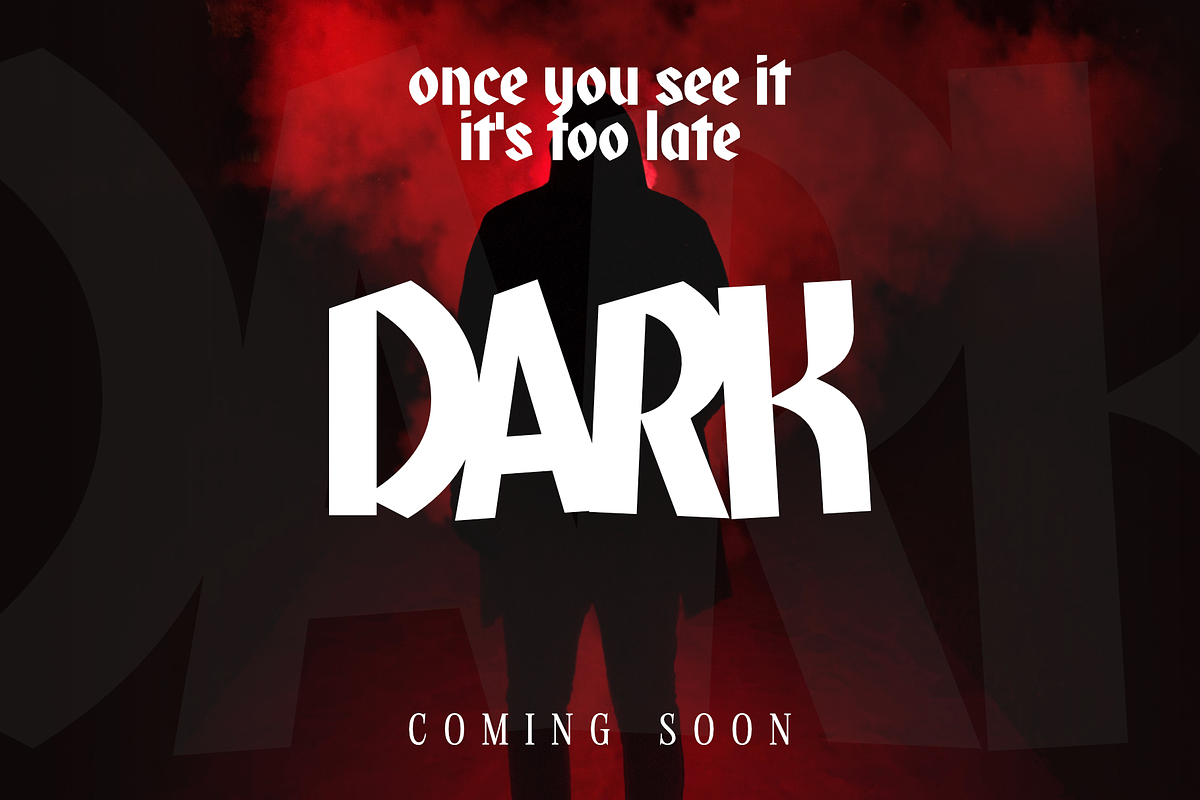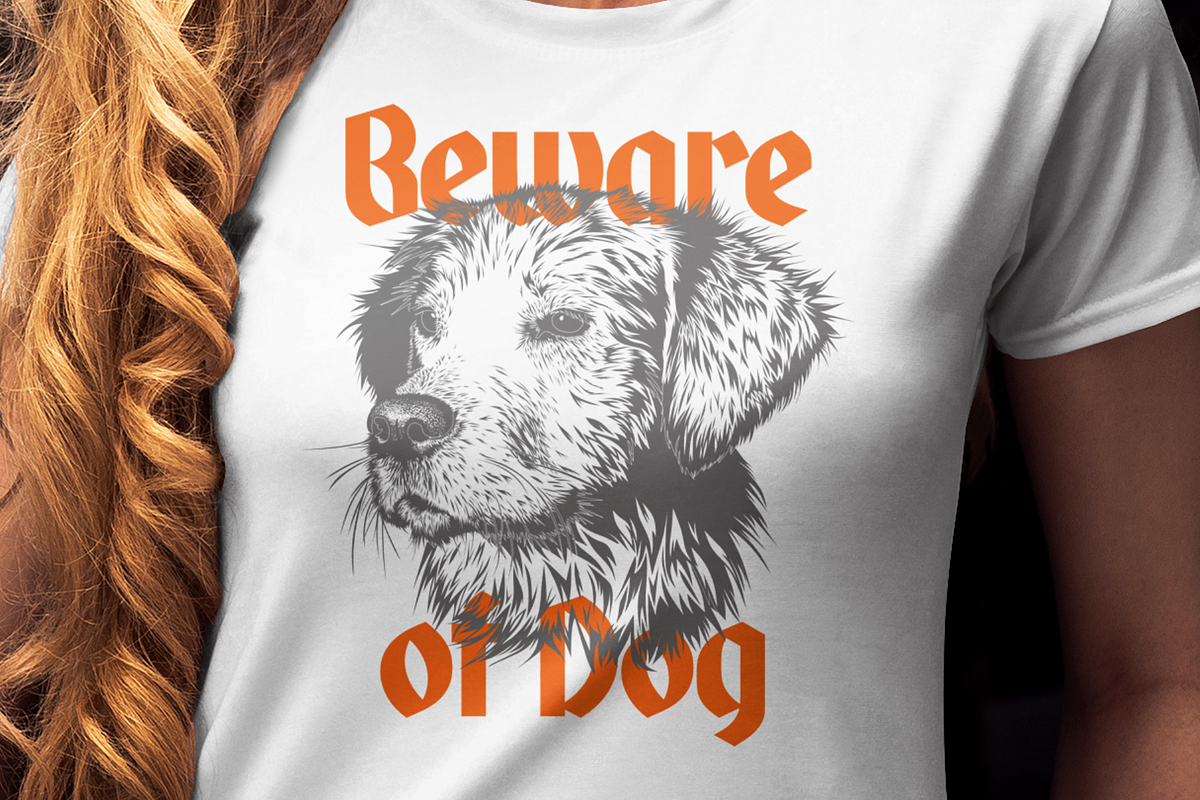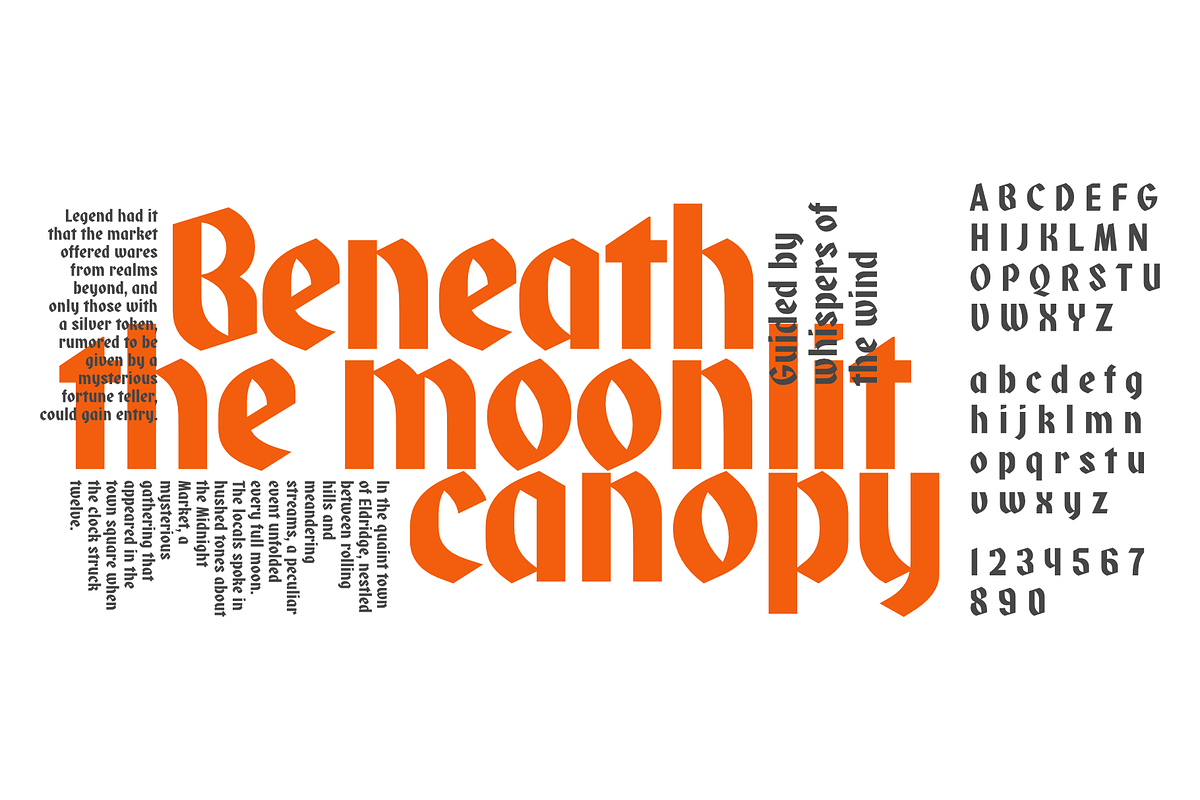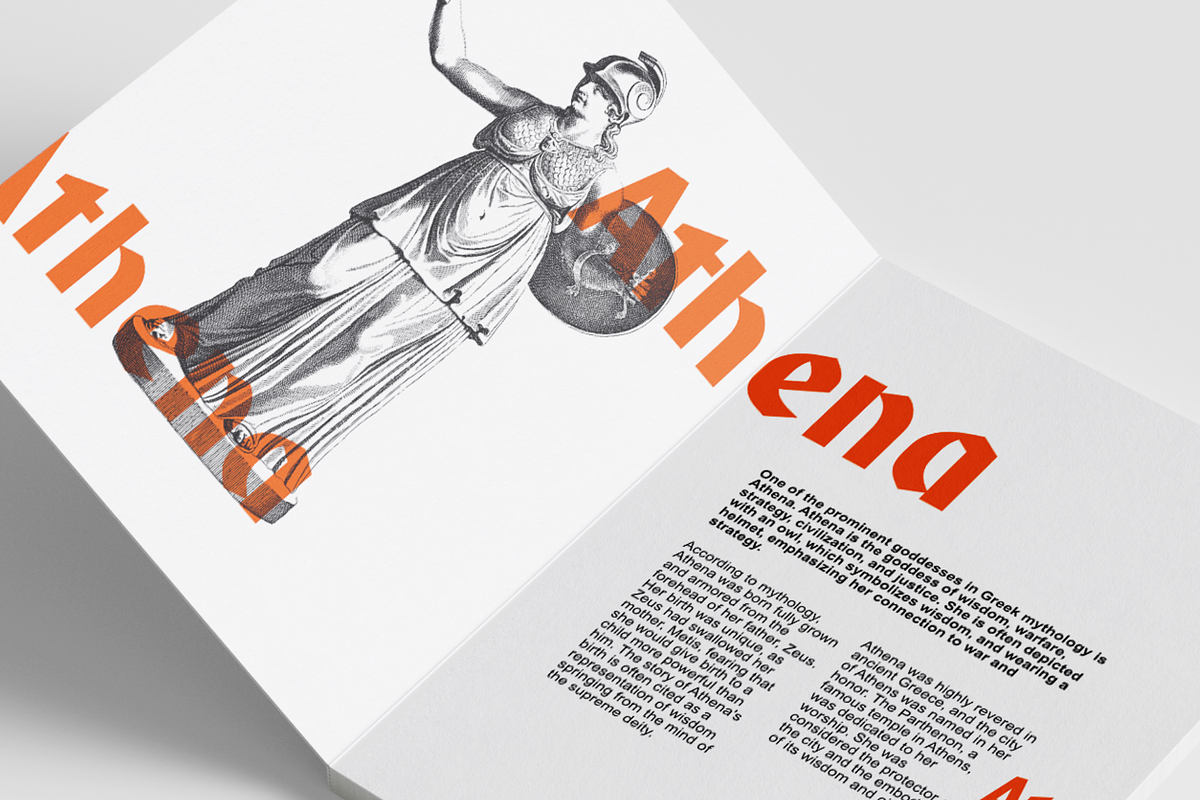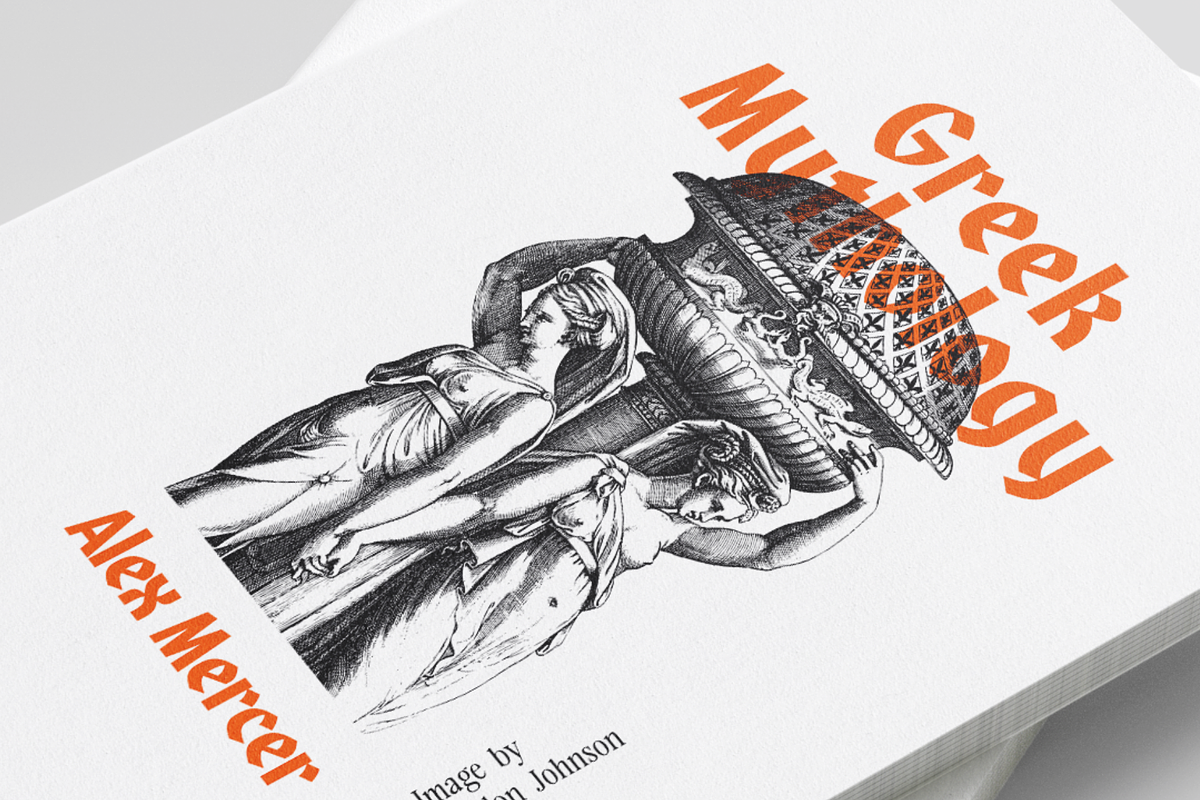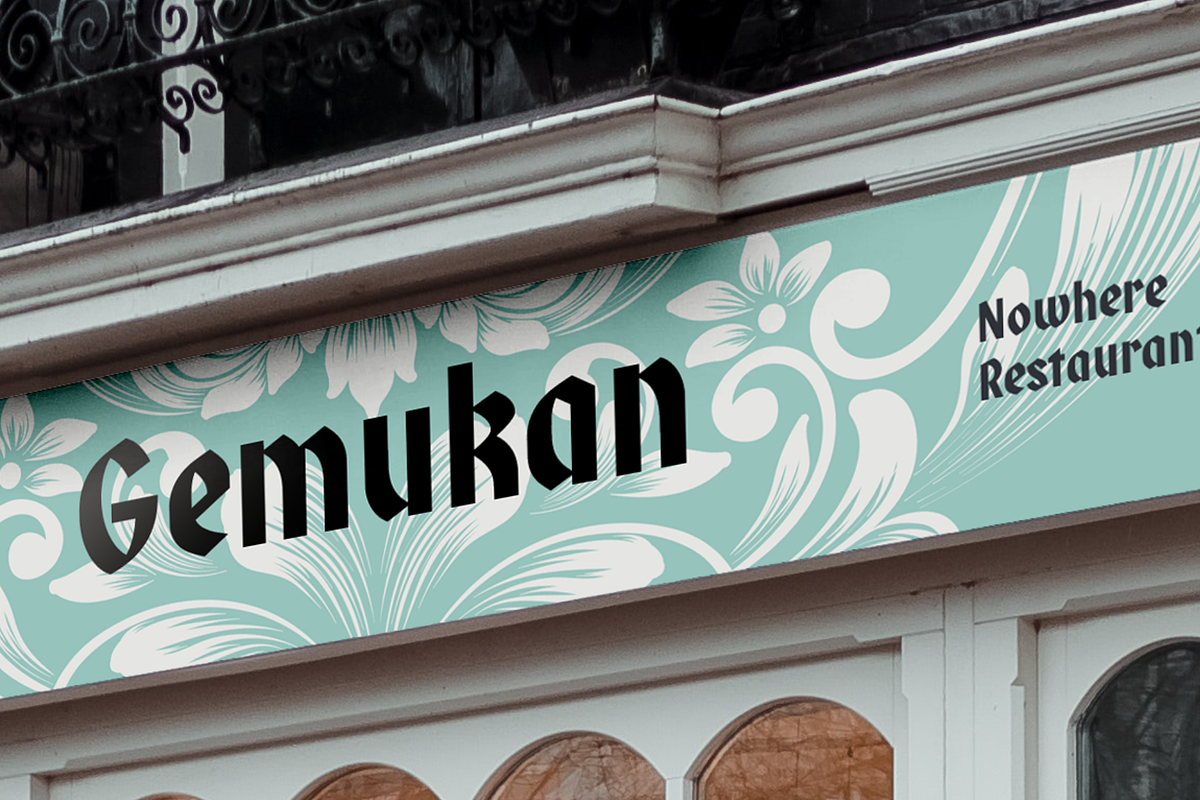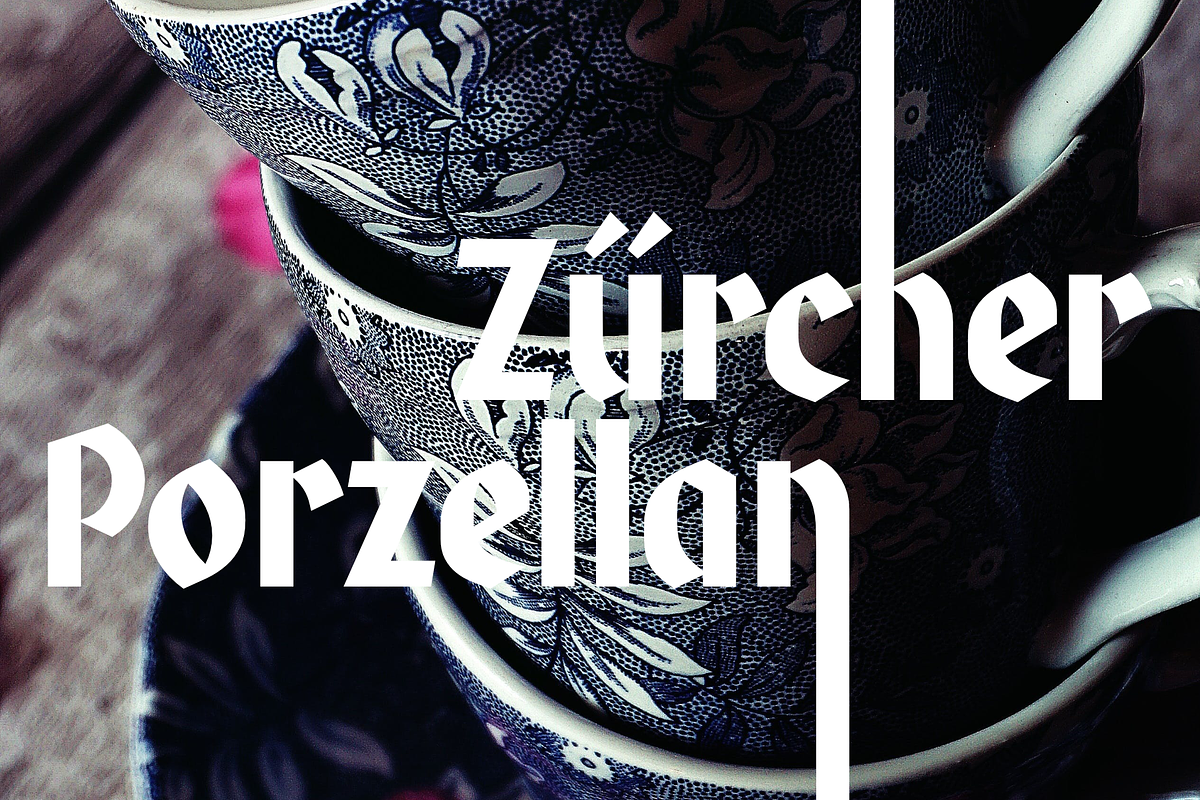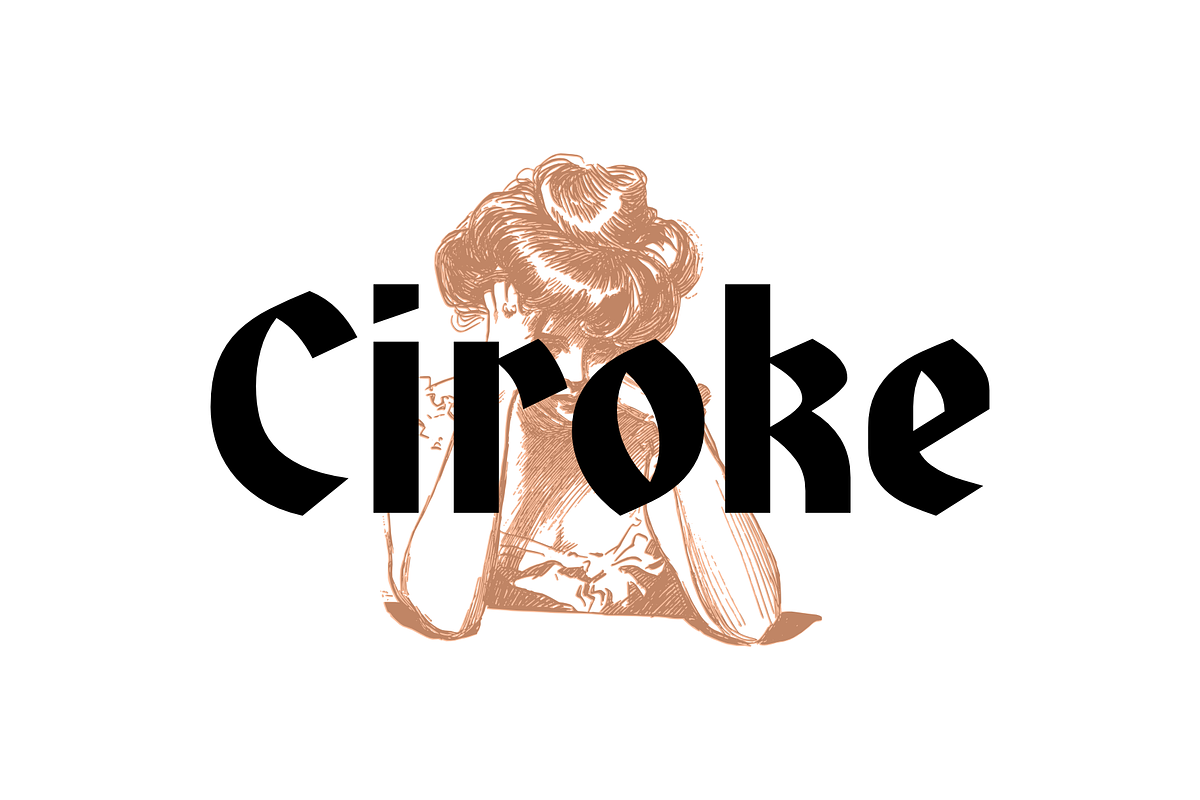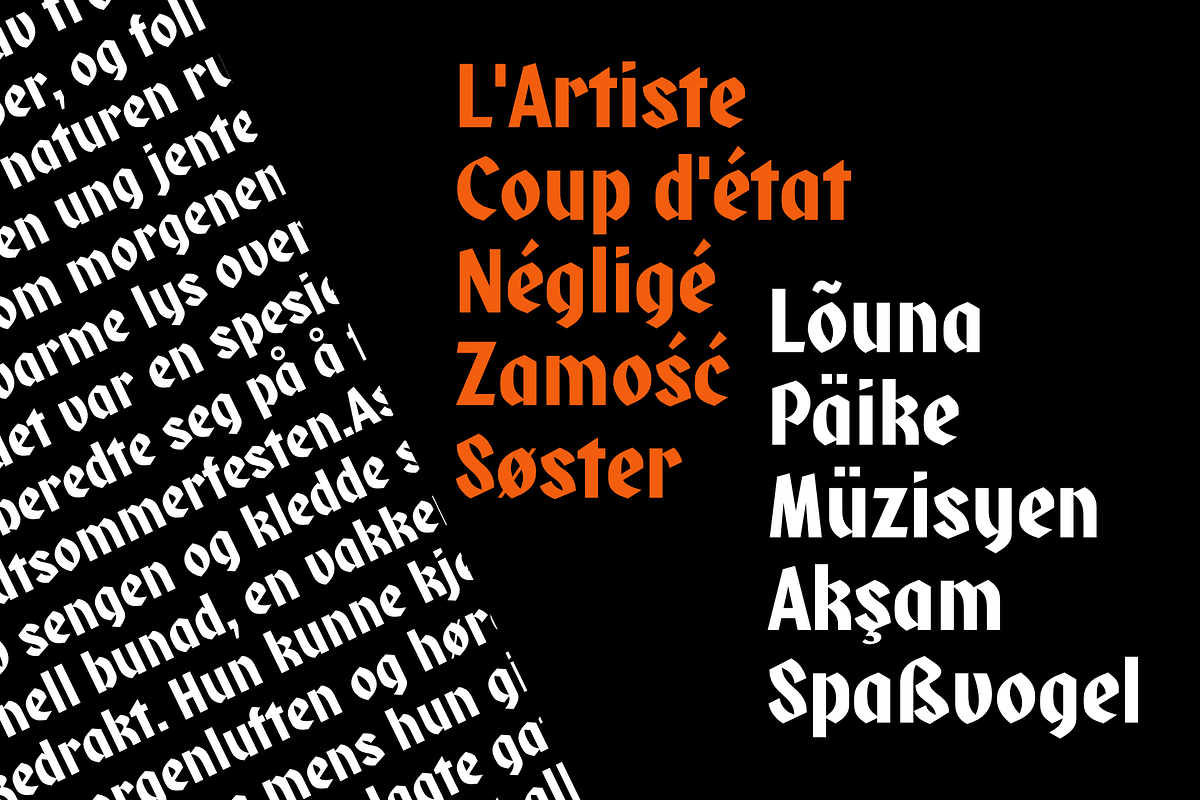
Ciroke
Ciroke is a distinctive modern blackletter typeface that seamlessly fuses the classic elegance of blackletter with the clean and contemporary aesthetics of sans serif fonts. This unique fusion results in a visually striking and versatile typeface that effortlessly bridges tradition and modernity.
Ciroke is an ideal choice for projects that demand a modern yet timeless aesthetic. It works well in branding, editorial design, packaging, and any application where a balance between tradition and contemporary style is desired. The font's versatility ensures that it can be used across various design platforms, from digital screens to print media.